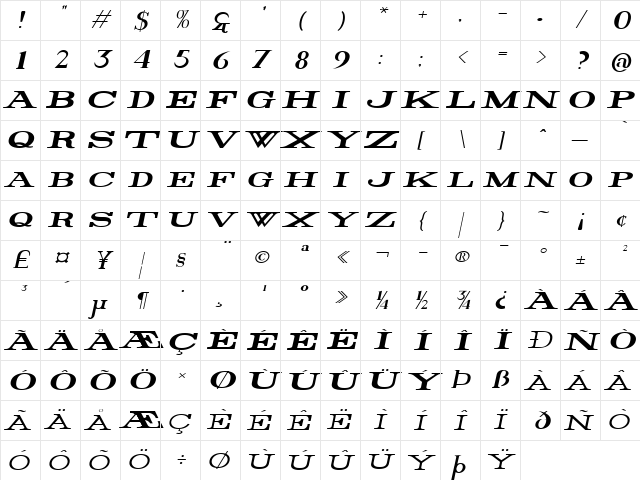
Complete Rider Wide Expanded Bold Italic glyph index. Displaying only characters natively supported by Rider Wide Expanded Bold Italic font.
Rider Wide is a composed and adaptable typeface that performs quietly and consistently across a wide range of design contexts. The slanted form adds forward momentum and visual energy. Its bold stroke weight gives it real presence on the page.
Pro Tip: Use Rider Wide for emphasis, pull quotes, and subheadings where its slanted energy can add rhythm to the layout.